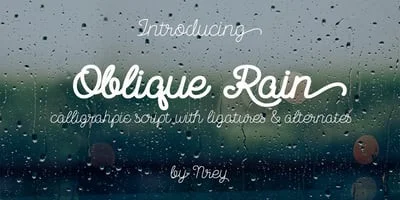
Oblique Rain Font
Oblique Rain Font is perfect for weather-themed designs, nature documentaries, artistic posters, creative book covers, atmospheric branding, modern logos, digital art projects, contemporary magazines, and any design that requires a dynamic, flowing aesthetic with natural movement.
What makes Oblique Rain Font exciting is its unique slanted design that mimics the natural flow of falling raindrops, creating a sense of movement and energy in every letter. This innovative typeface captures the beauty of precipitation through typography, with each character featuring subtle angular variations that suggest the diagonal patterns of rain. The font's distinctive italic-inspired structure adds dynamism while maintaining excellent readability across various applications.
The Oblique Rain Font family includes regular and bold weights, featuring complete uppercase and lowercase alphabets, numerals, punctuation marks, and special characters. The font maintains consistent slant angles throughout all characters, creating a cohesive visual rhythm that enhances the overall design flow.
Whether you're creating weather-related content, designing nature-inspired materials, or developing modern branding with organic elements, Oblique Rain Font brings natural movement and contemporary style to your projects. This distinctive typeface transforms static text into dynamic visual elements that capture the essence of natural phenomena. The font's versatility extends from digital interfaces to print advertising, making it an excellent choice for designers seeking unique, nature-inspired typography. Download this captivating font today and let your designs flow with natural elegance.